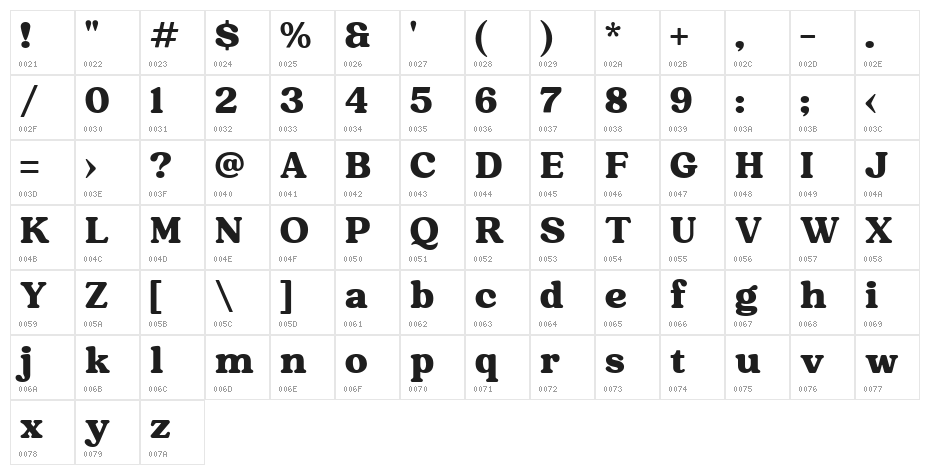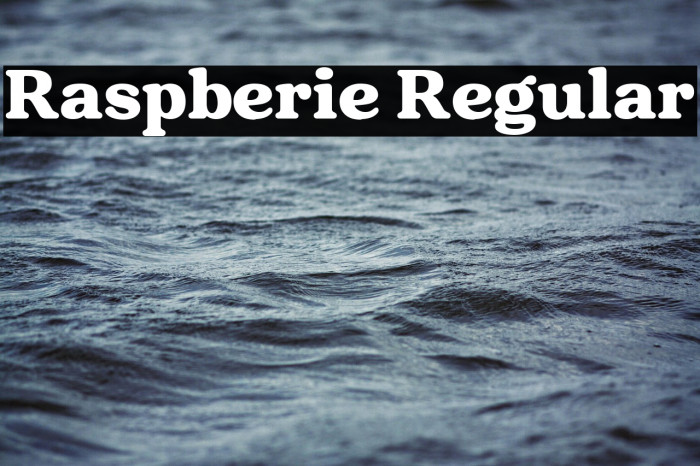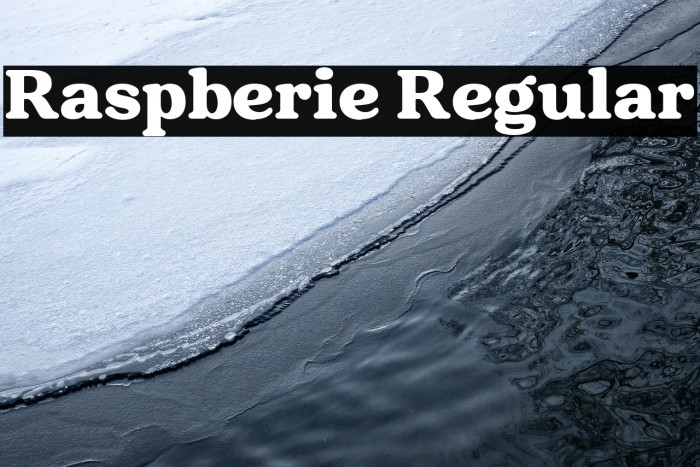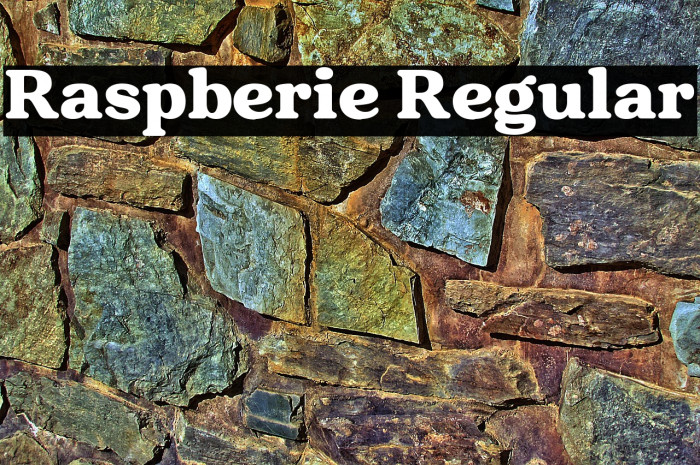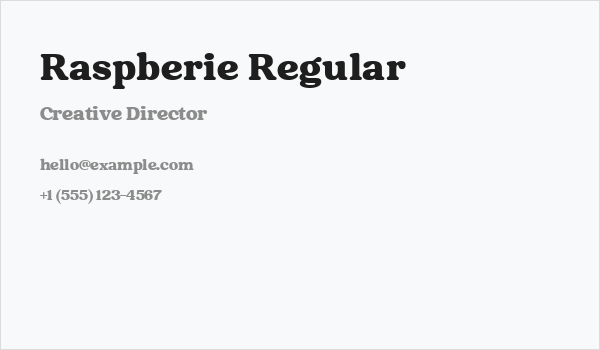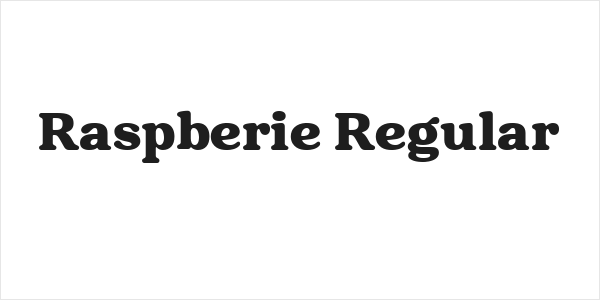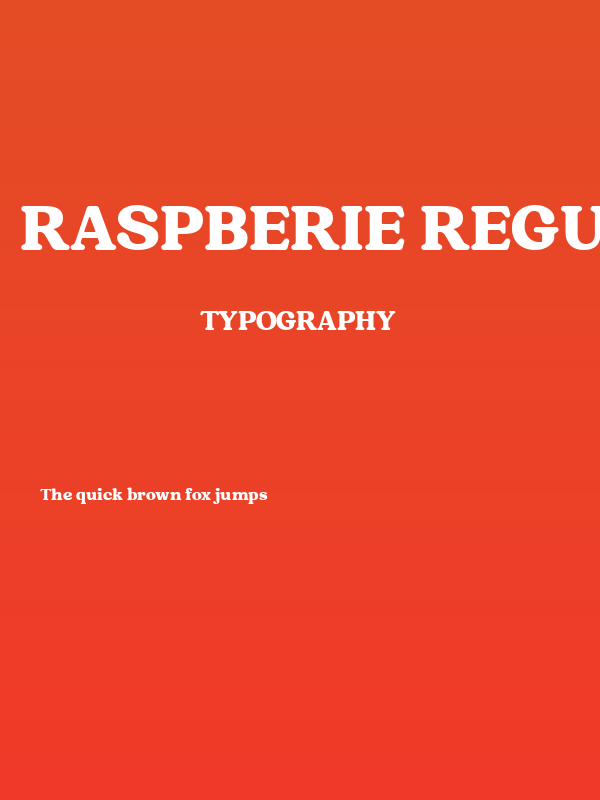
Raspberie Regular Font
Raspberie Regular Description
This font exhibits a bold and robust serif style, characterized by thick strokes and prominent serifs that give it a strong and authoritative presence. The uppercase letters are well-defined with a traditional serif structure, while the lowercase letters maintain a consistent and harmonious flow. The numerals are clear and easily distinguishable, making them suitable for various applications. The special characters are crafted with attention to detail, ensuring they complement the overall design. This font is ideal for projects that require a classic and impactful look, such as headlines, logos, and branding materials.
| Proposed Projects | Ideal for headlines, logos, branding, and editorial design. |